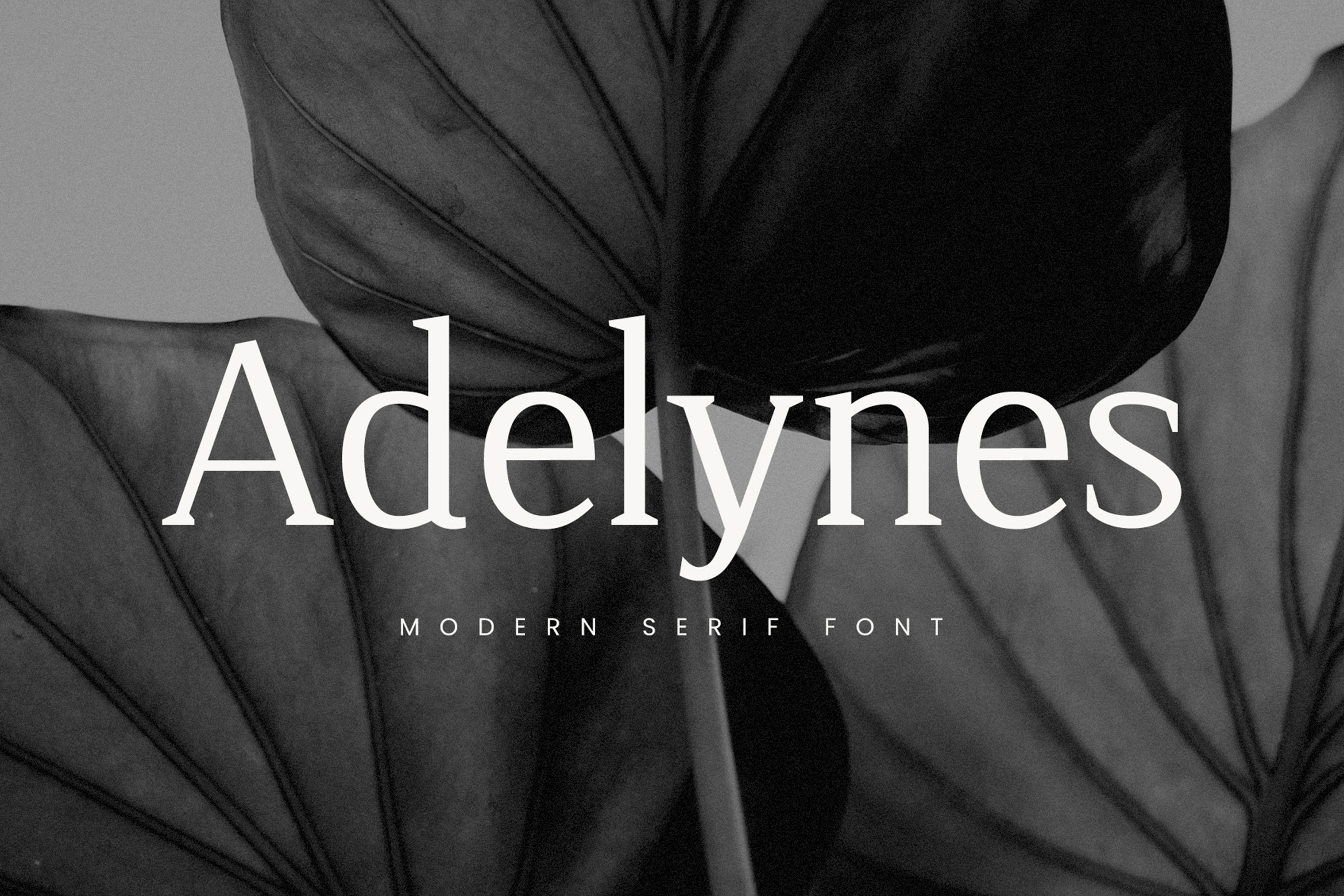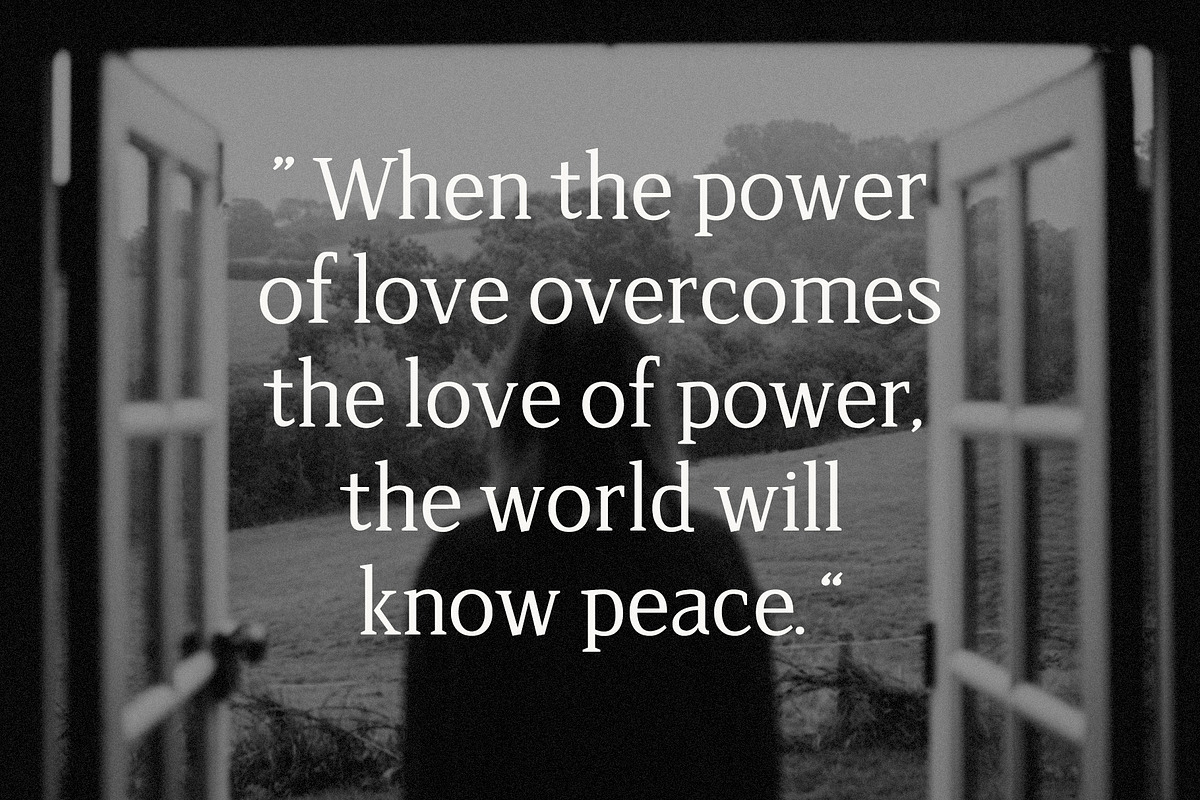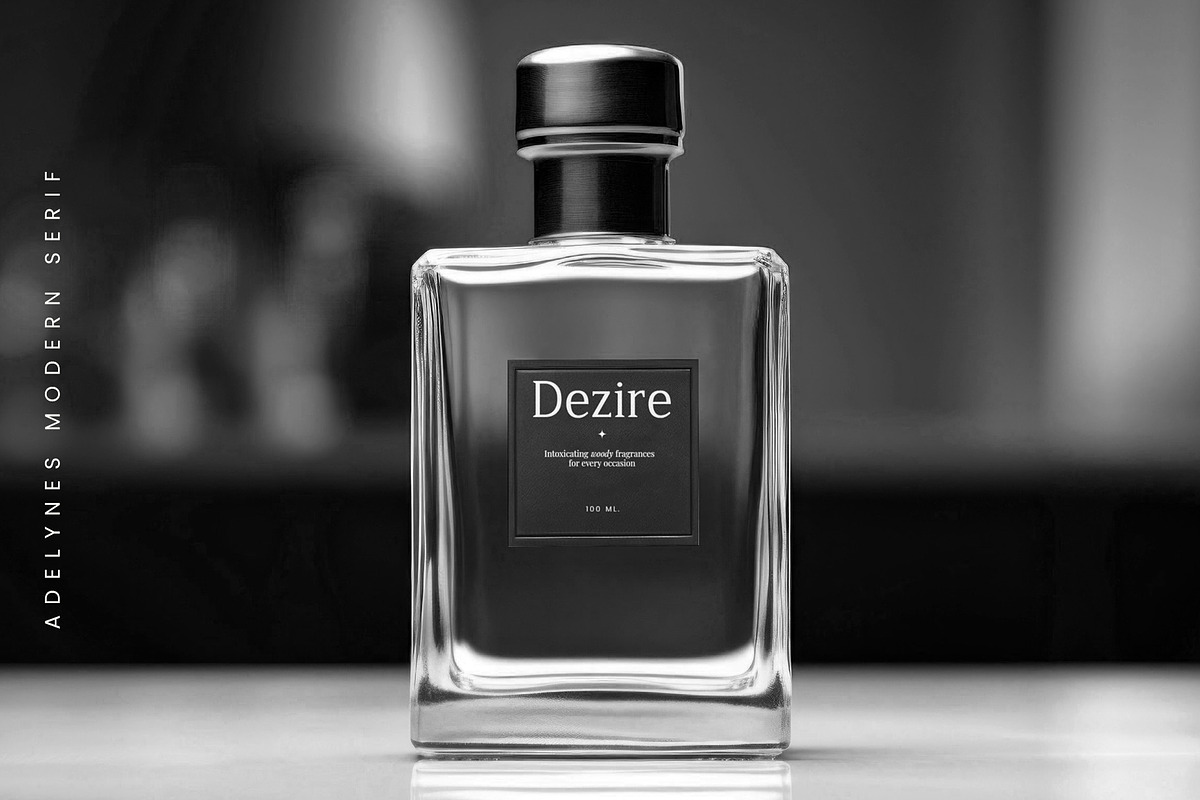
Adelynes - Modern Serif Font
Introducing Adelynes - Modern Serif Font. Adelynes is a modern and simple font, best used as a display for headings, logos, branding, magazines, product packaging and invitations.